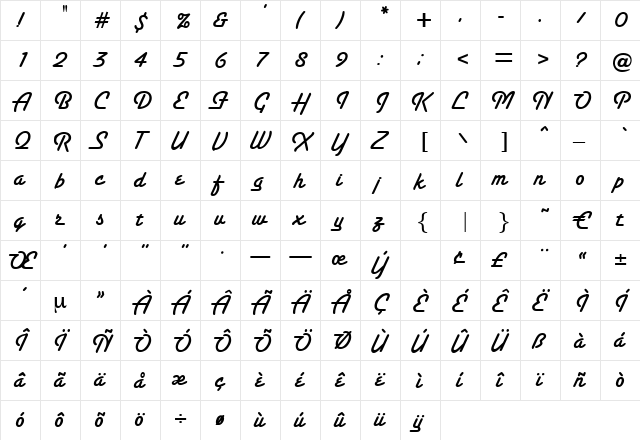
Sierra Regular Font Preview
Sierra Regular
Design Context for Sierra Typeface
Sierra is a composed and adaptable typeface that performs quietly and consistently across a wide range of design contexts.